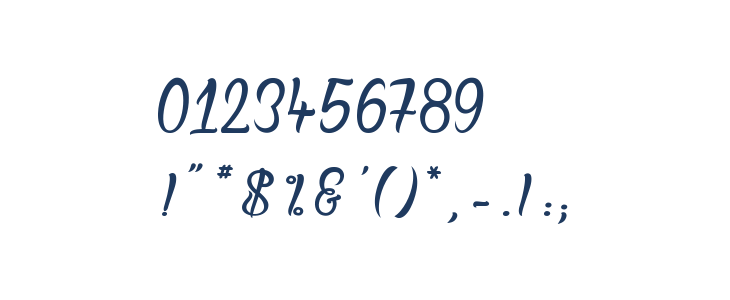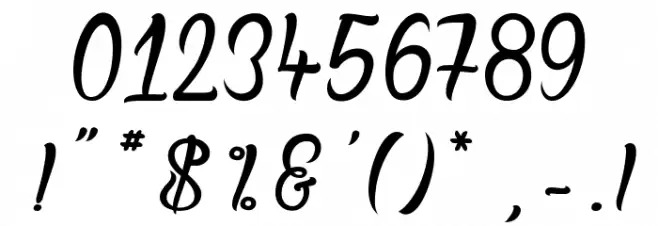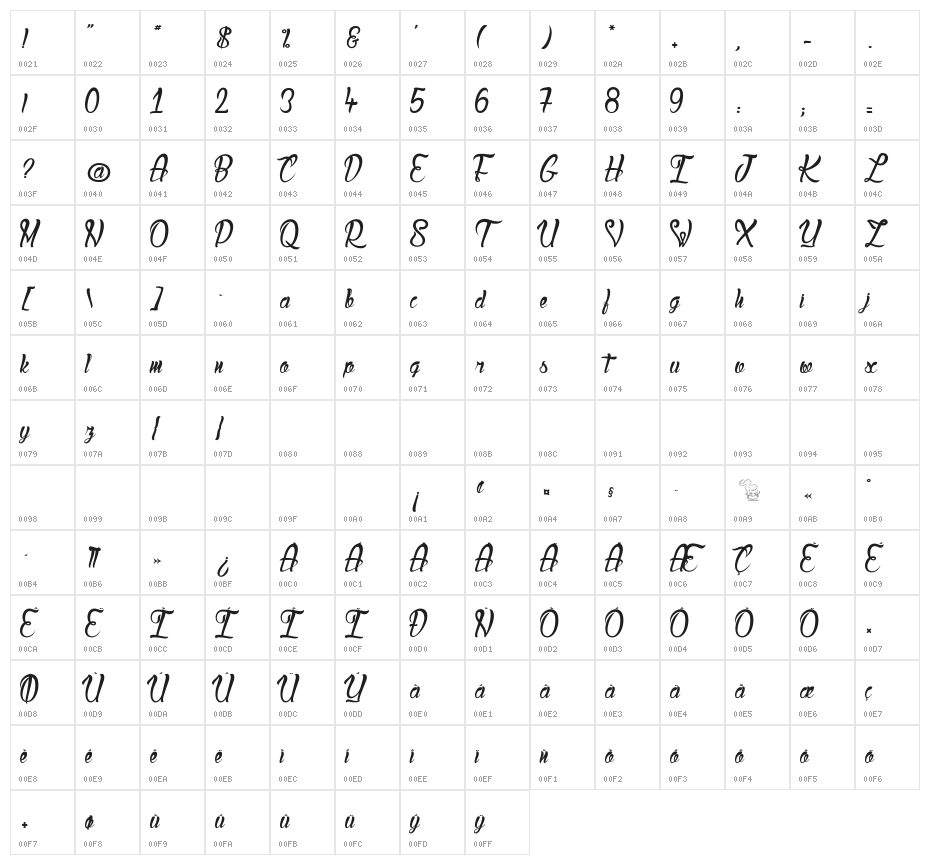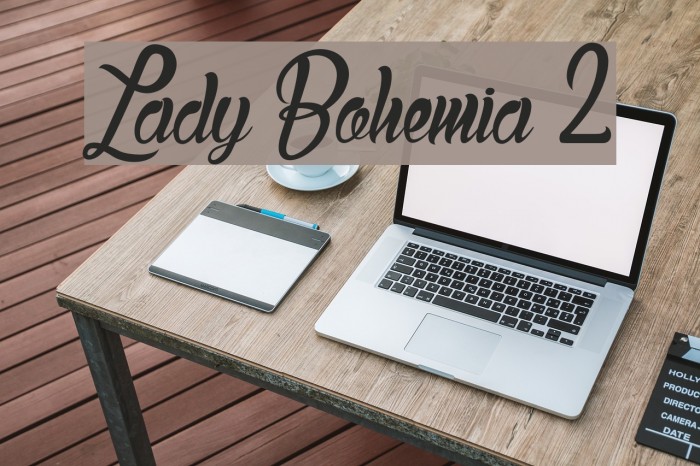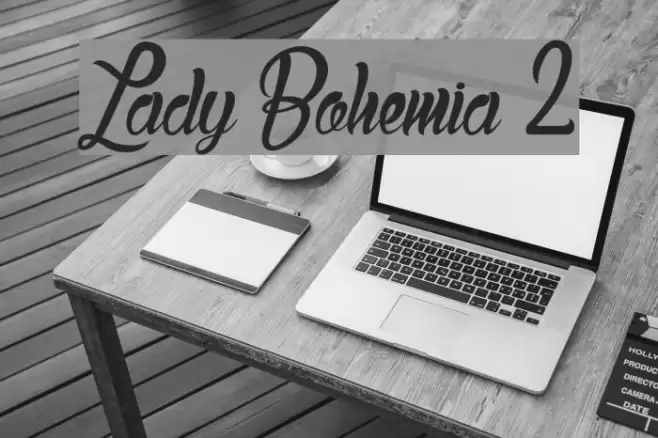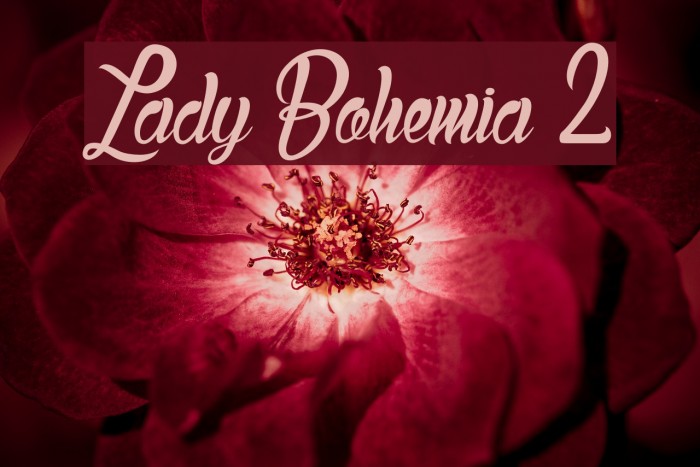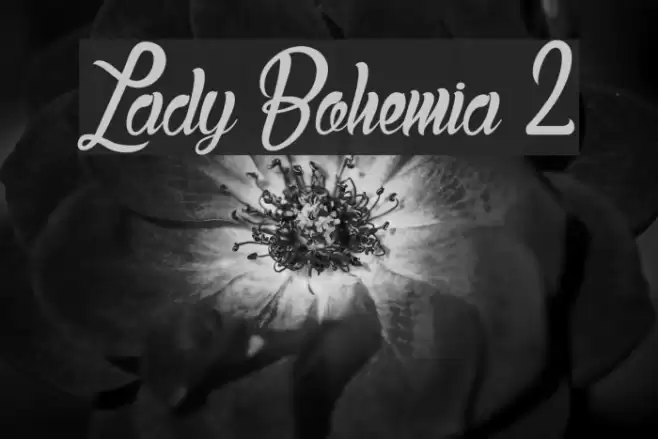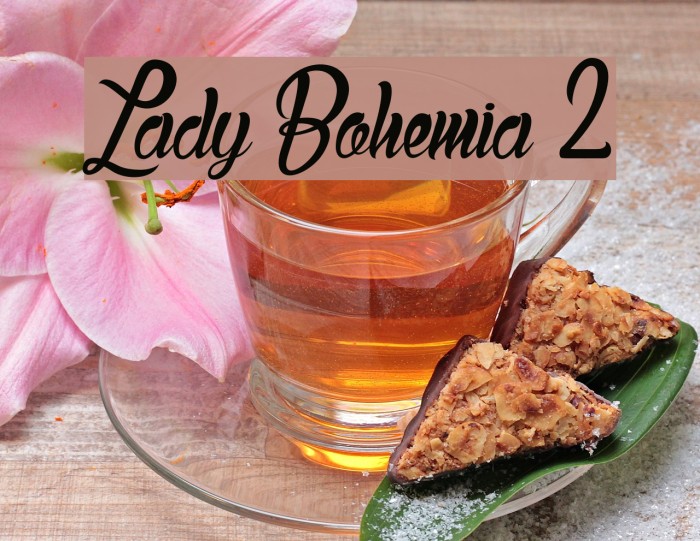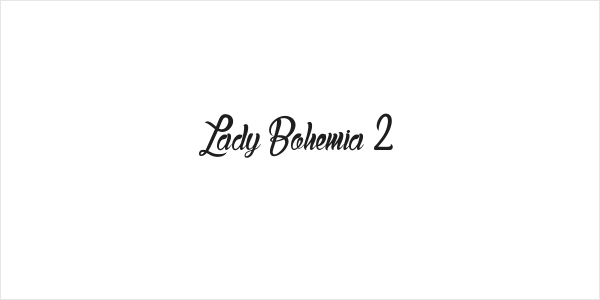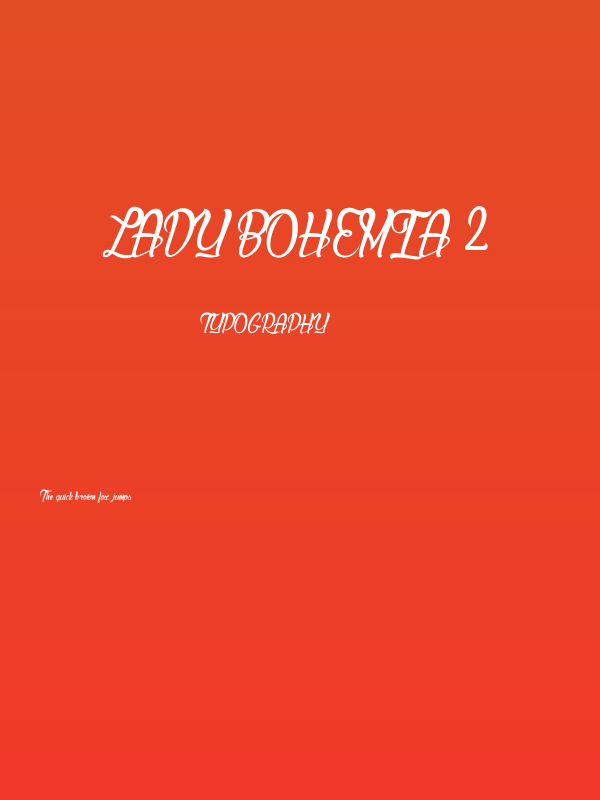
Lady Bohemia 2 Font
Lady Bohemia 2 Description
This font exudes a whimsical and artistic flair, characterized by its flowing, cursive style. The uppercase letters are elegantly elongated with sweeping curves, while the lowercase letters maintain a consistent fluidity, enhancing the overall aesthetic. The numerals are distinct yet harmonize with the script-like quality of the alphabet. Special characters are creatively integrated, adding to the font's versatility. The strokes are smooth and consistent, with a medium contrast that highlights the graceful transitions between thick and thin lines. This font is ideal for projects that require a touch of elegance and creativity.
Use CaseLogos, Invitations, Decorative text
Proposed ProjectsIdeal for wedding invitations, greeting cards, artistic branding, and decorative posters.